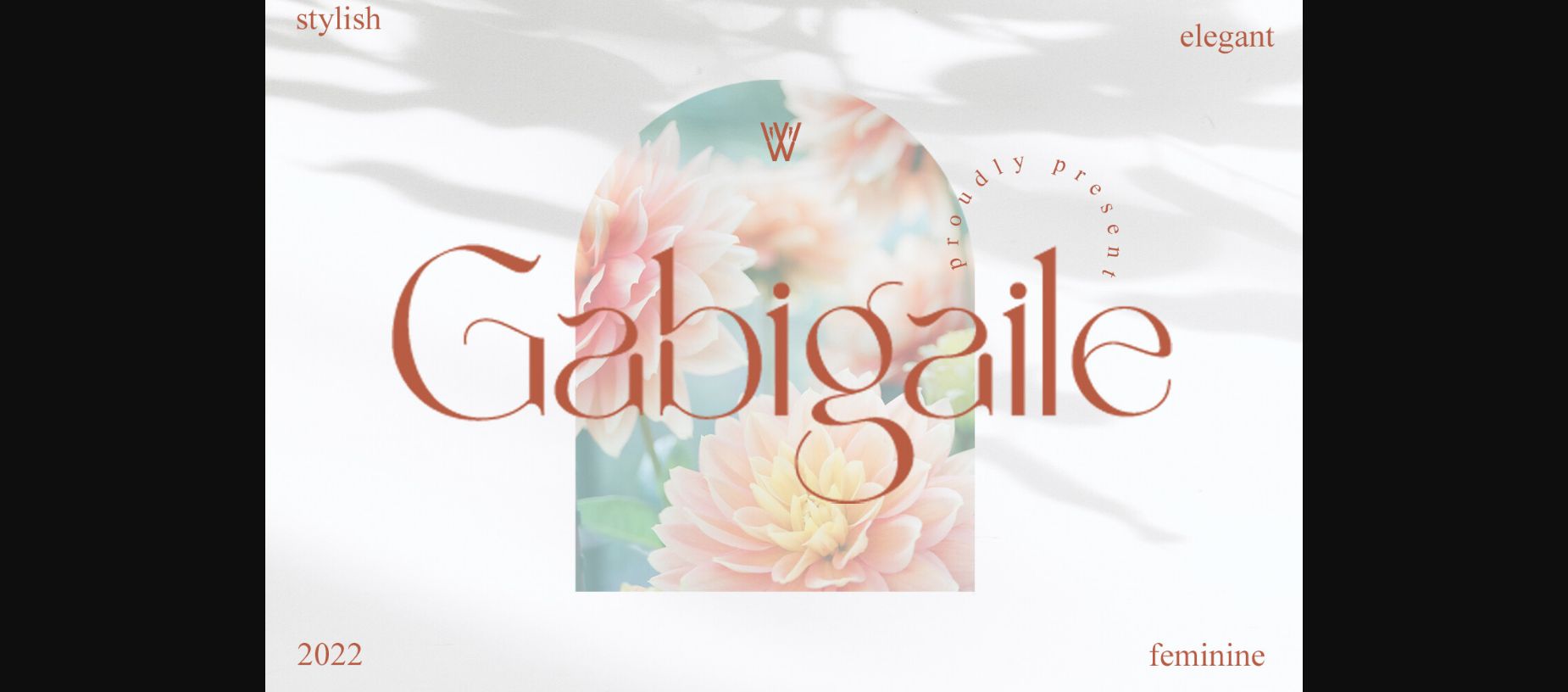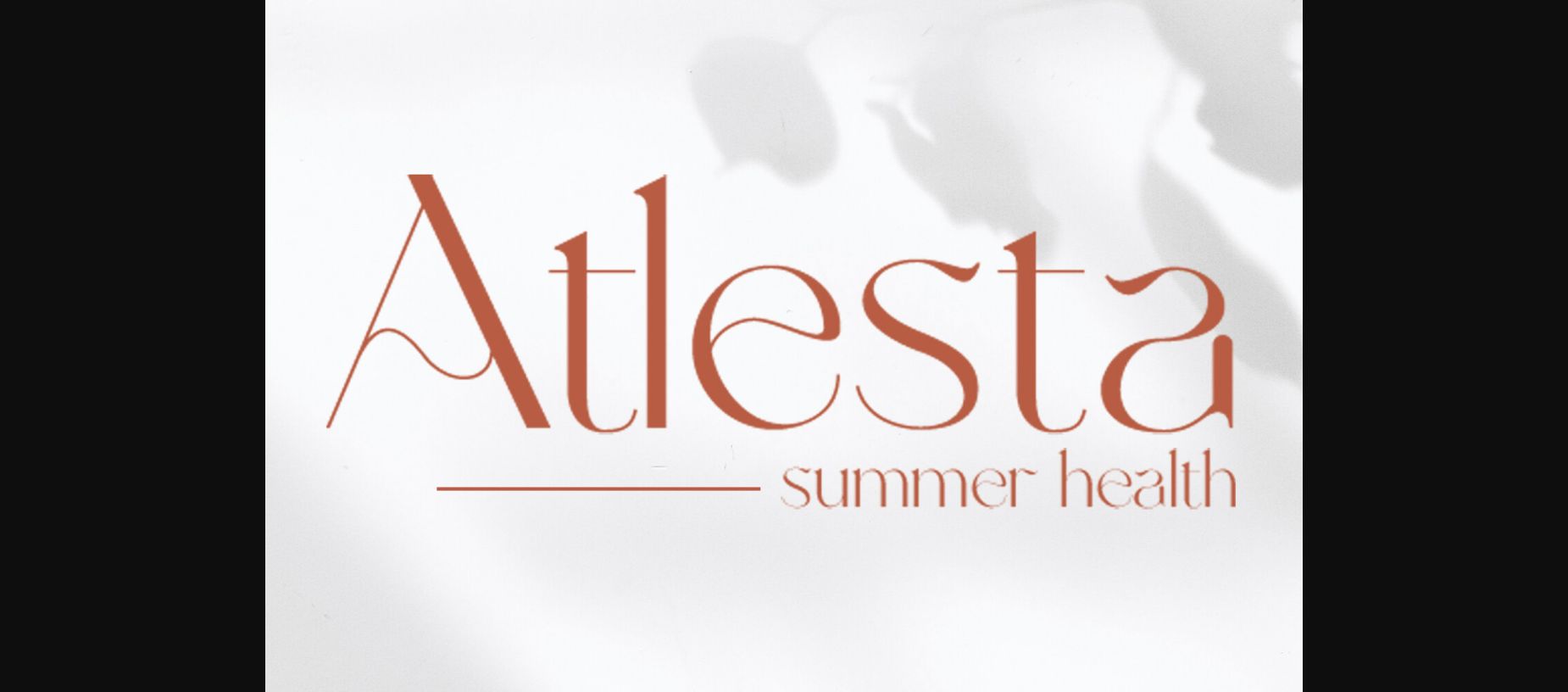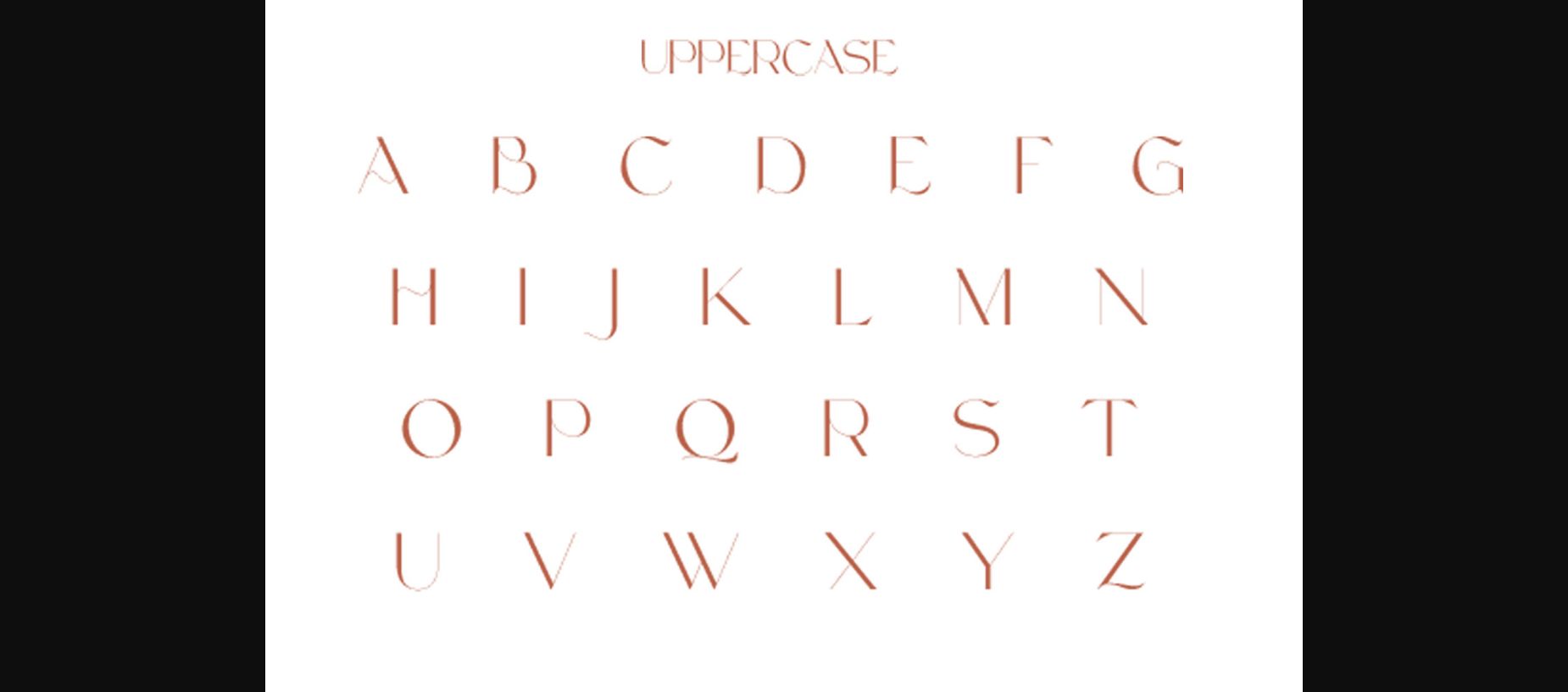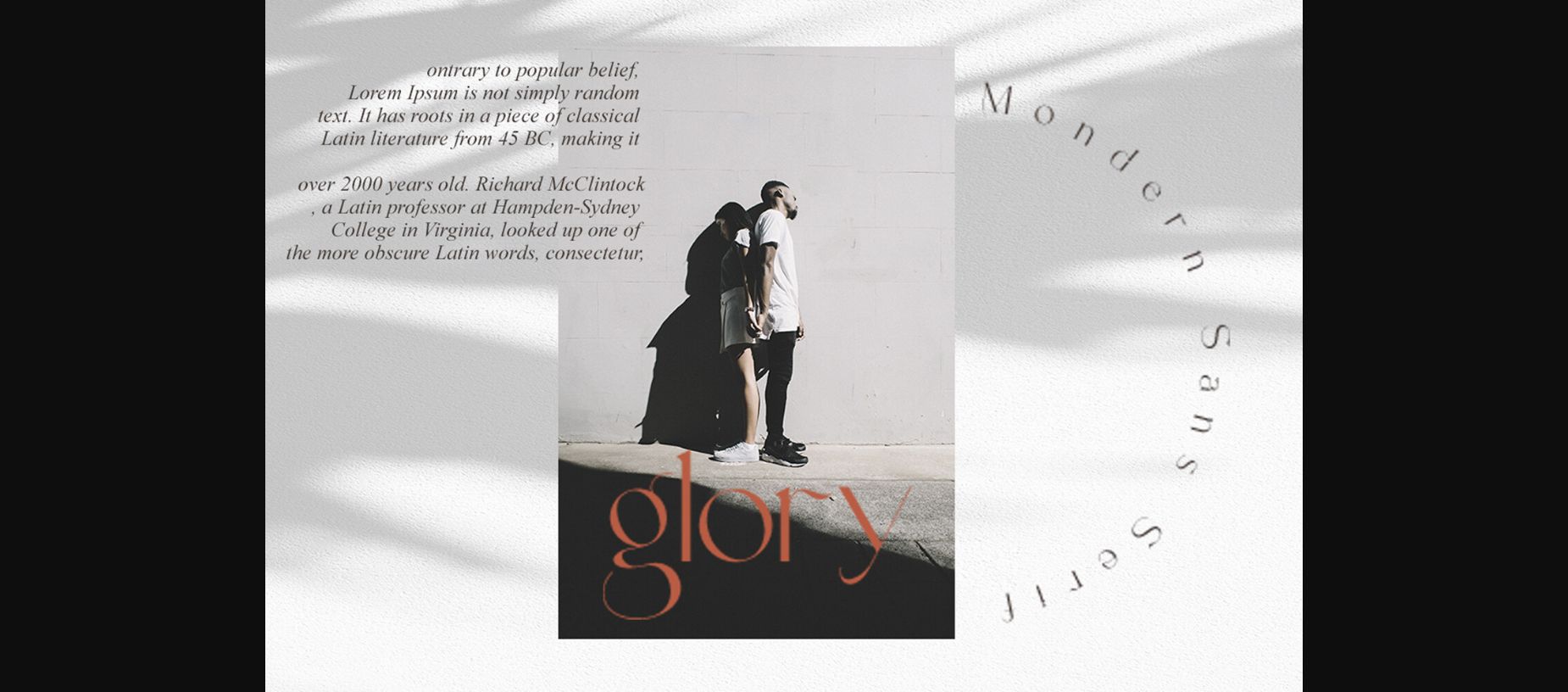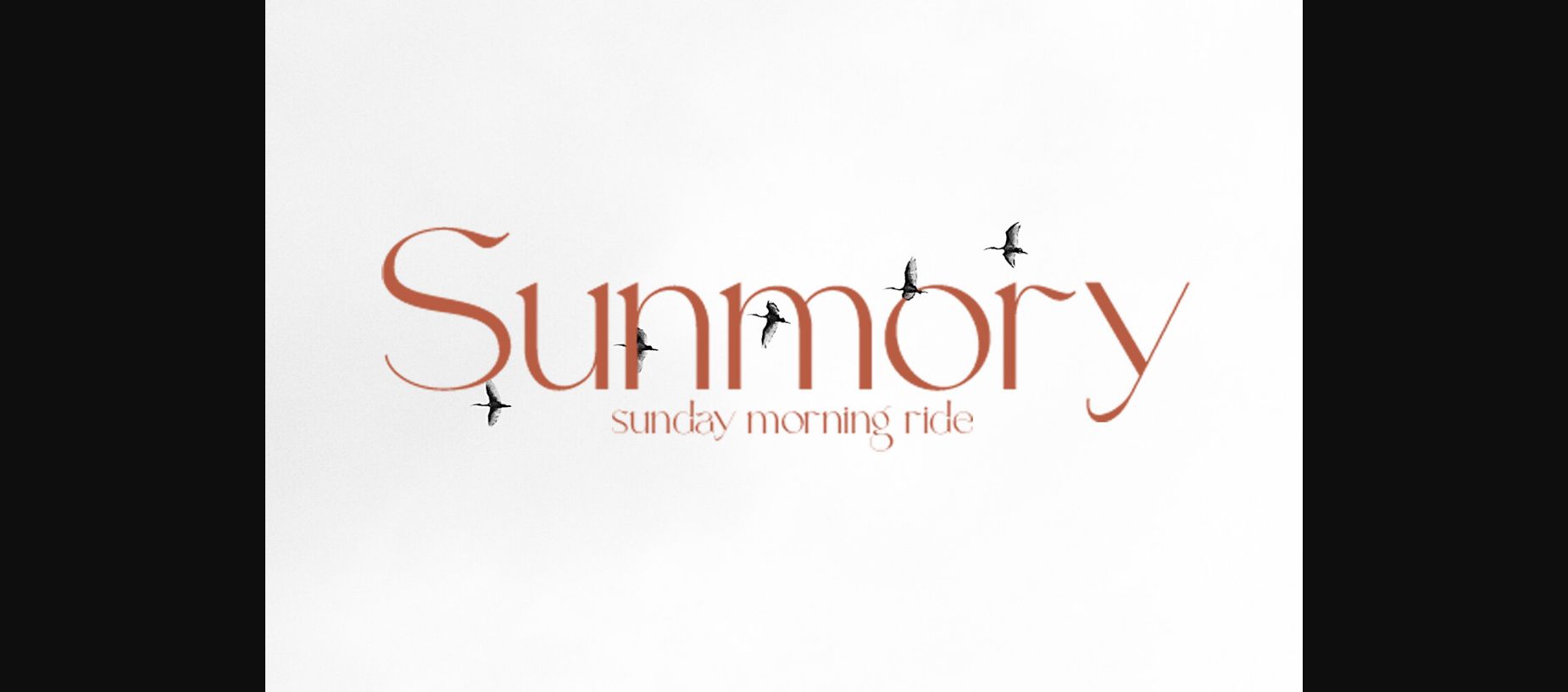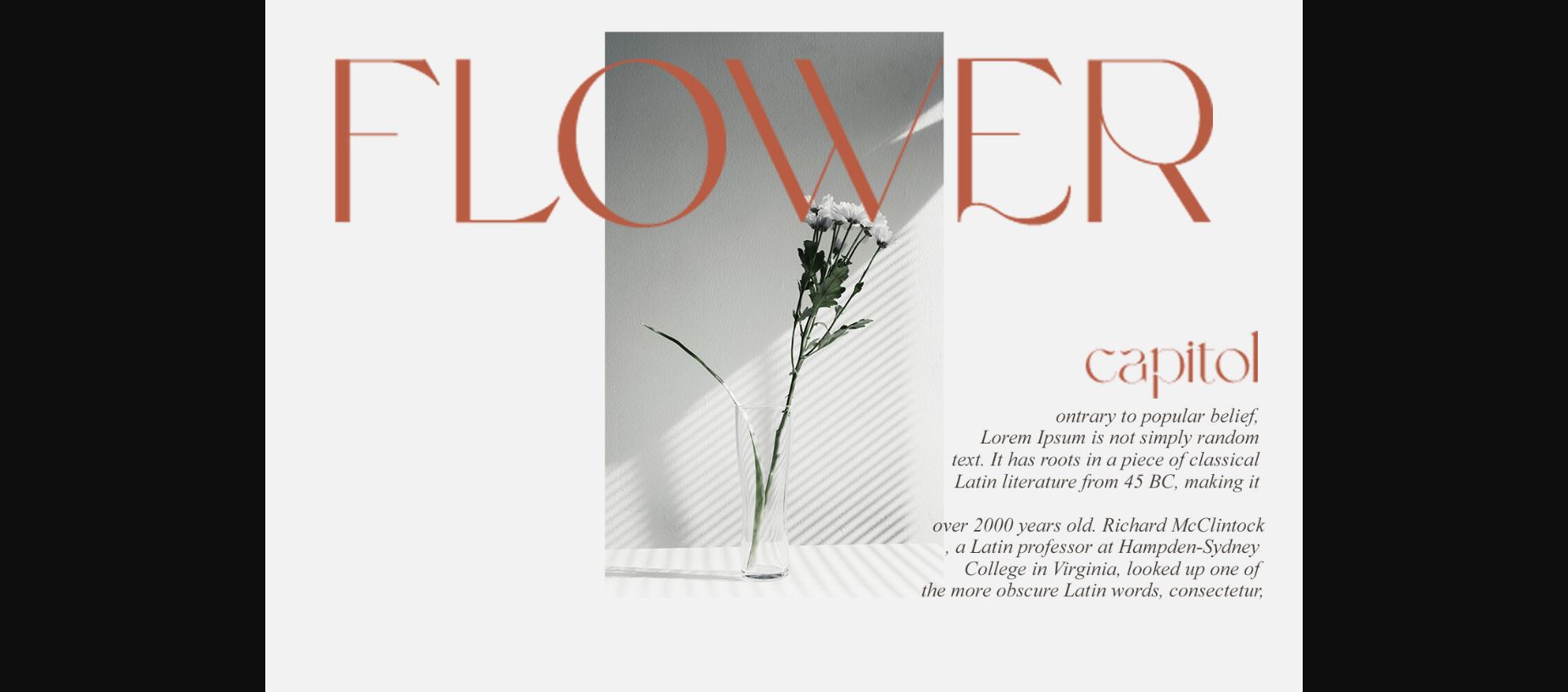
About Gabigaile Font
Gabigaile is a typeface that is flexible and suitable for designs that emphasize aesthetics and beauty. It can display an elegant nature but with an interesting curved shape. Whether used for branding, invitations, or editorial design, Gabigaile adds a touch of glamor to any project.